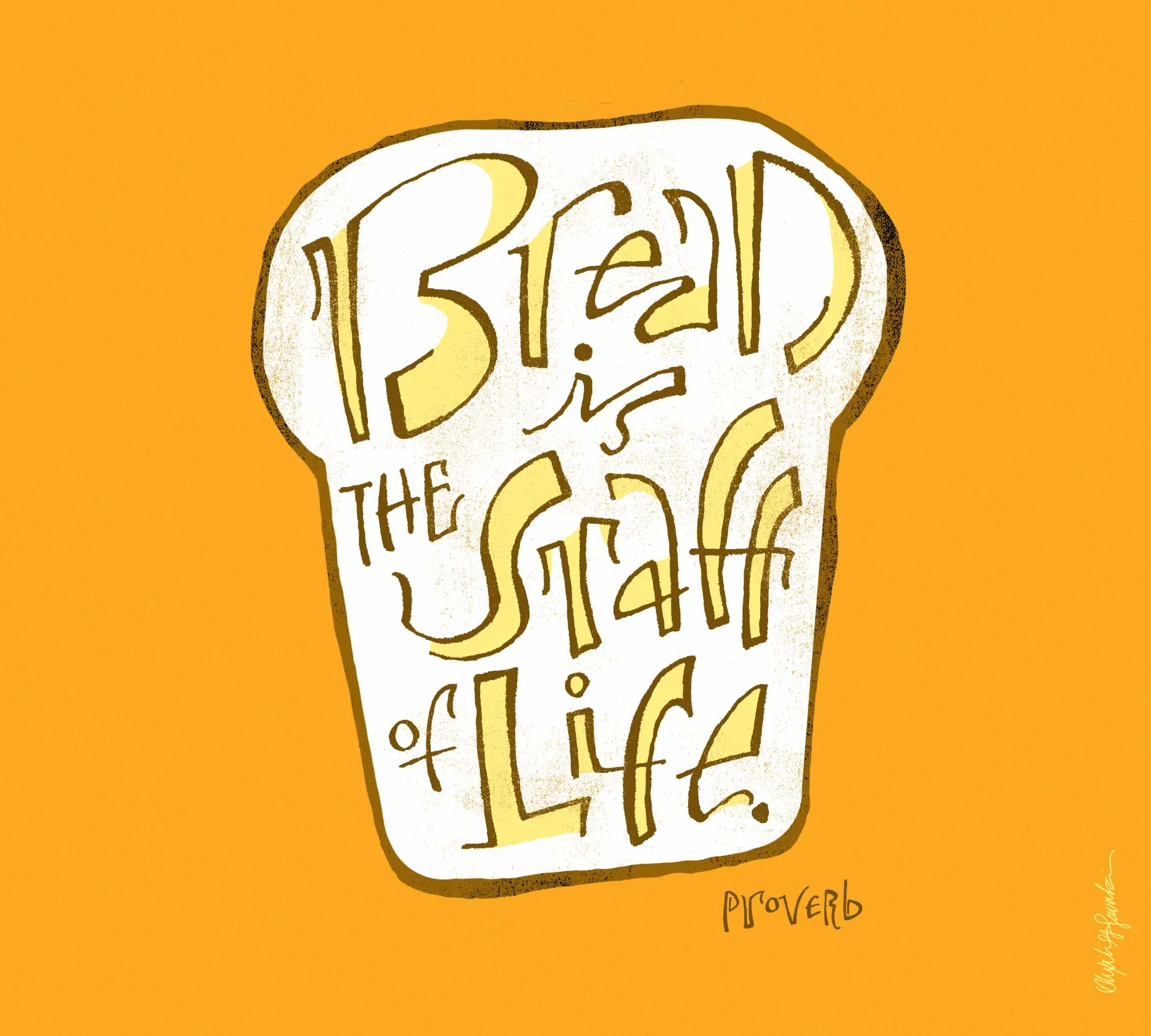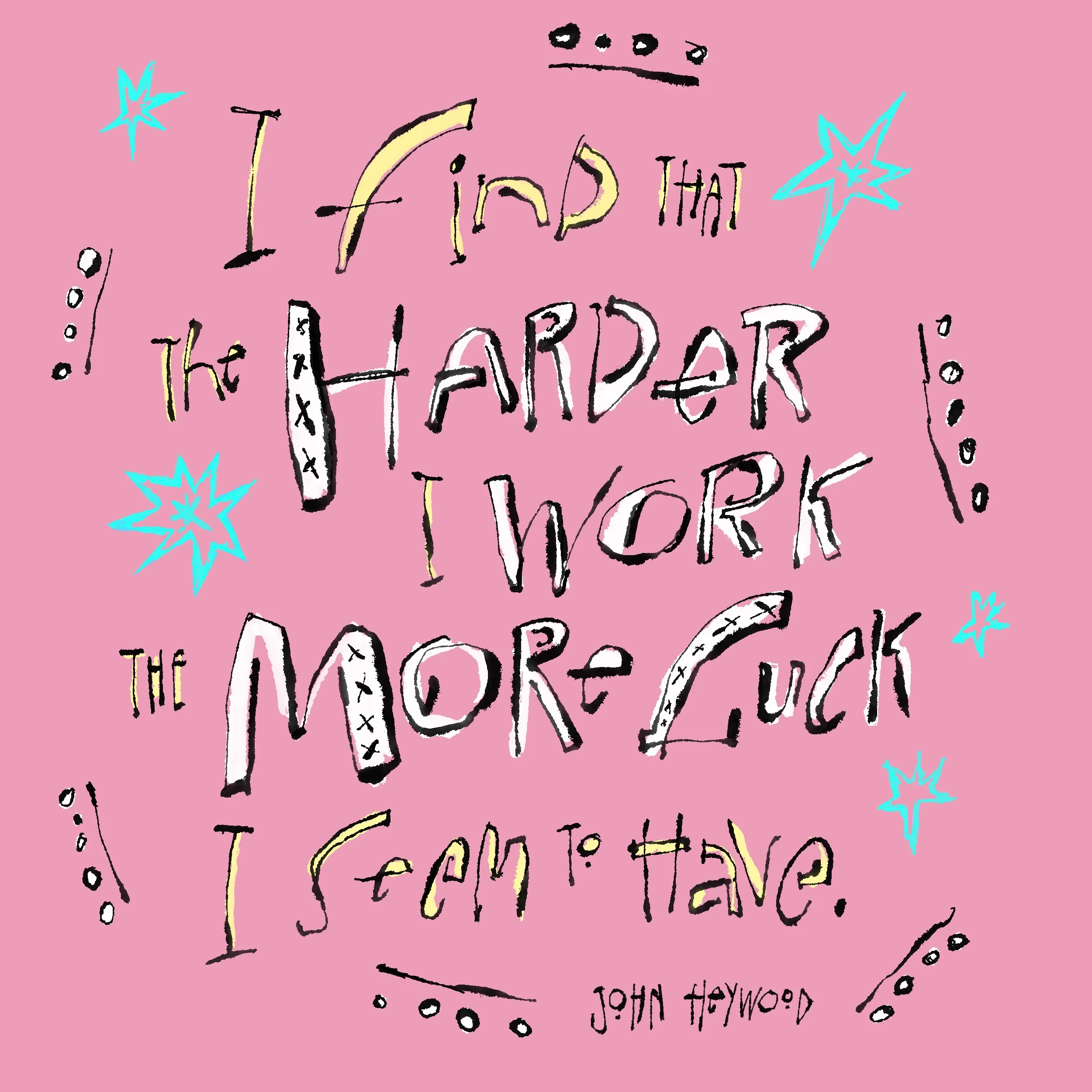
Expressive Hand Lettering
As Lettering Guy I design expressive and funky lettering. I see my lettering designs on greeting cards and consumer products. My favorite tools are ruling pens, pointed pens, pens by Muji and the Apple Pencil Pro.